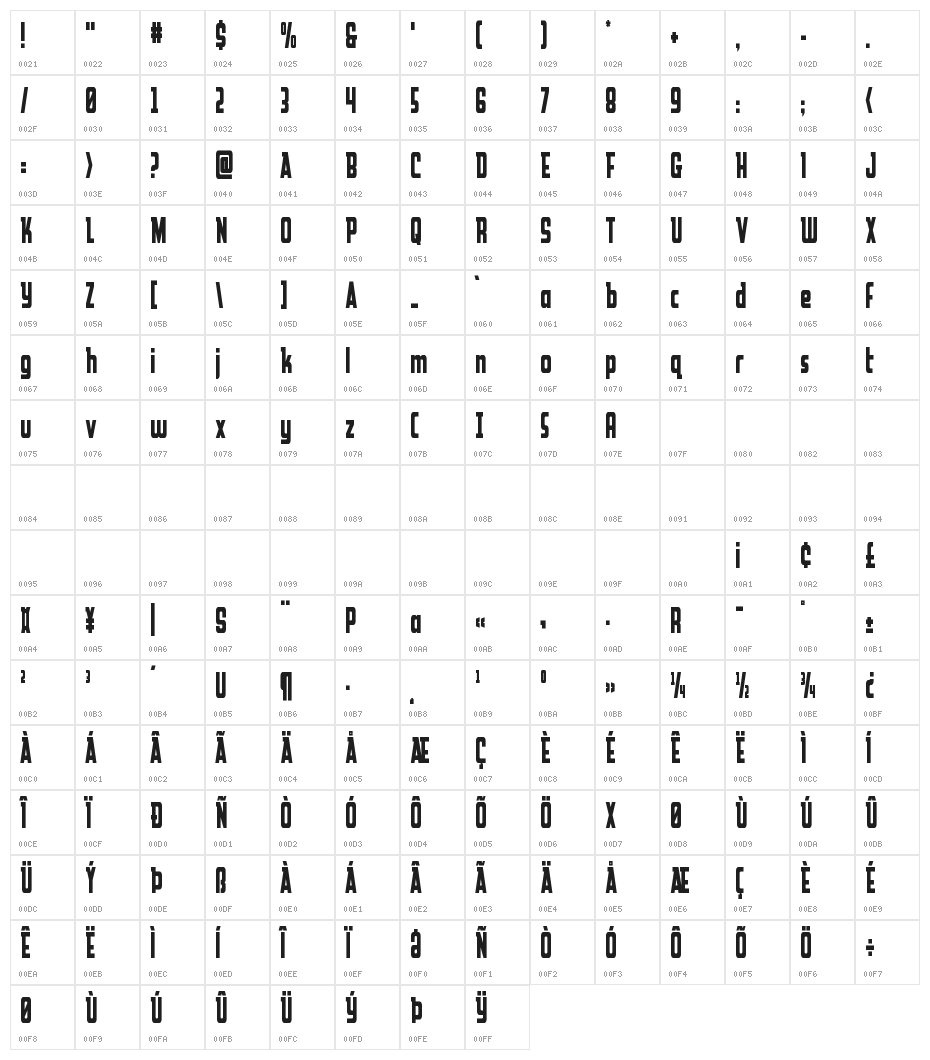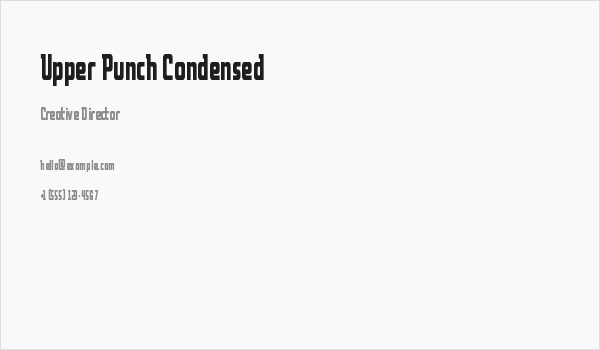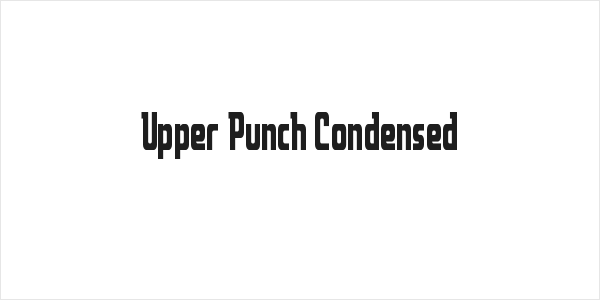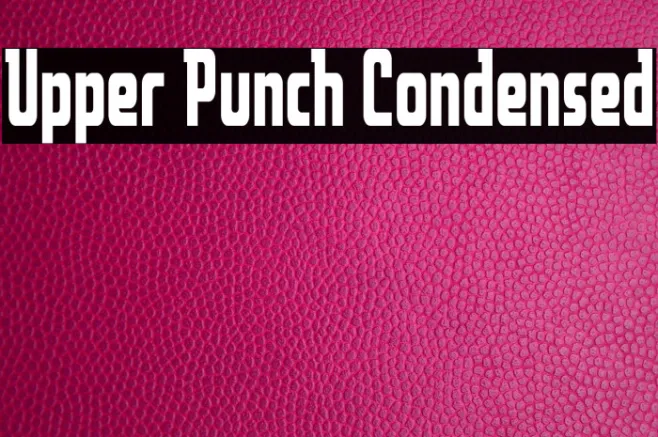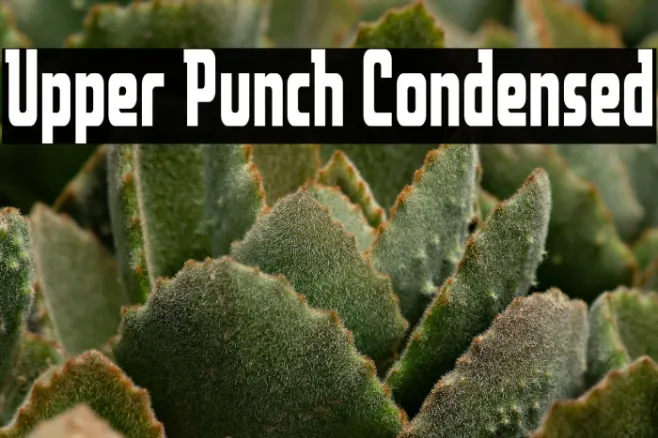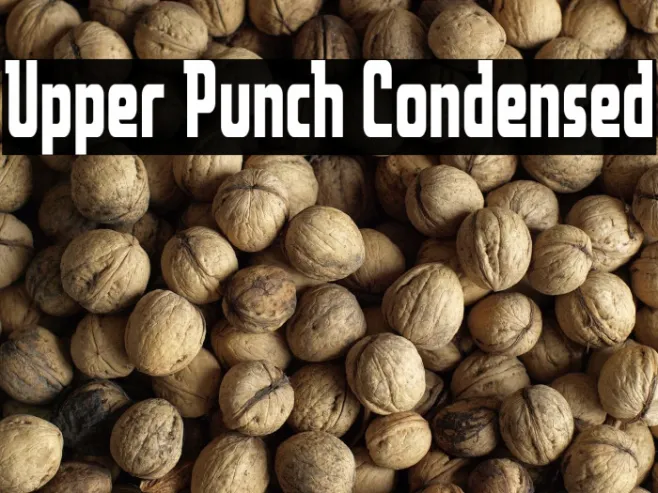
Upper Punch Condensed Font
Upper Punch Condensed Description
This font features a bold and condensed style, characterized by its strong, impactful presence. The uppercase letters are tall and narrow, with a uniform stroke width that gives a modern and robust appearance. The lowercase letters maintain the condensed form, ensuring consistency across the typeface. The numerals are equally bold, providing excellent readability. Special characters are designed to match the overall aesthetic, making this font suitable for attention-grabbing headlines and titles. Its condensed nature allows for efficient use of space without sacrificing legibility.
UPPER-PUNCH-CONDENSED UPPERCASE
UPPER-PUNCH-CONDENSED LOWERCASE
UPPER-PUNCH-CONDENSED OTHER CHARS
| Proposed Projects | Ideal for posters, headlines, branding, and any project requiring a bold statement. |